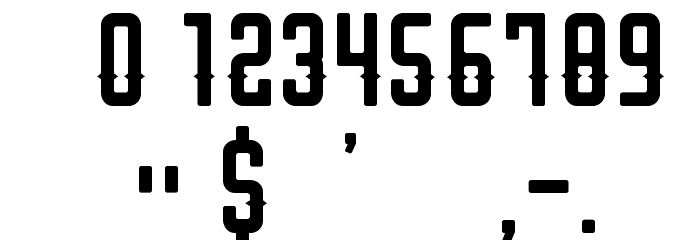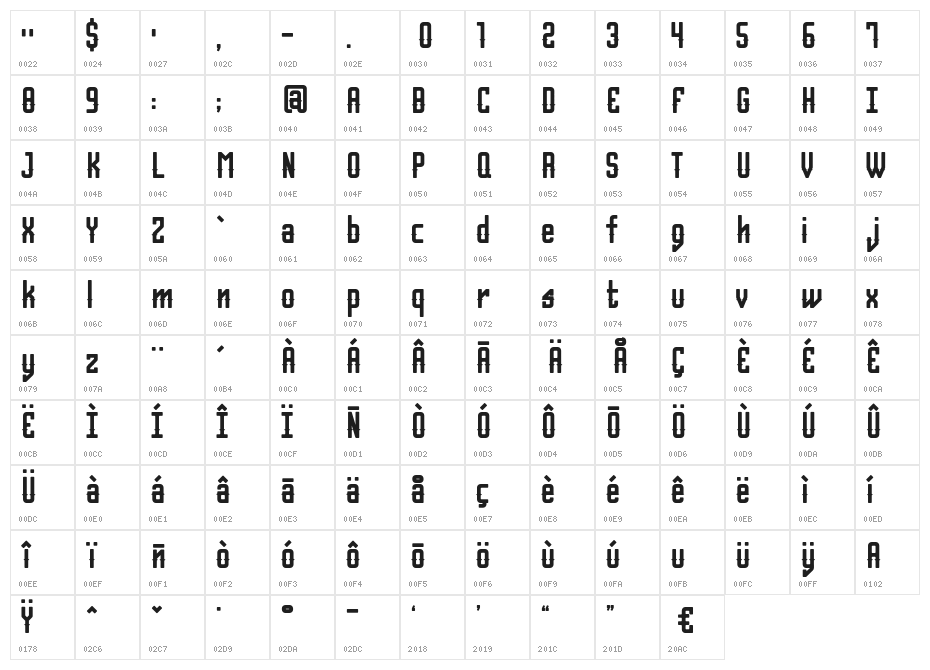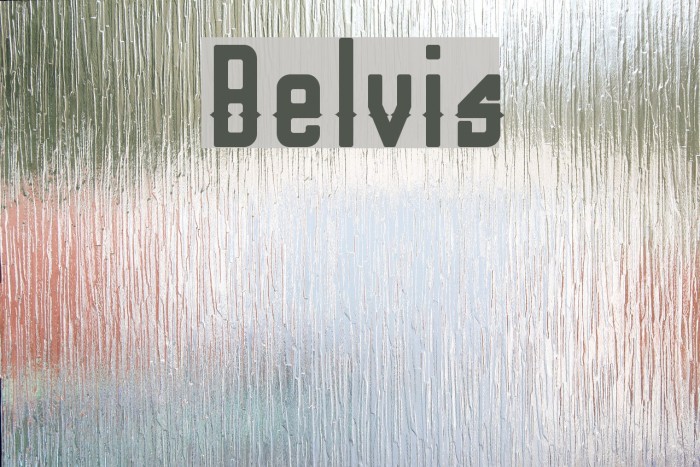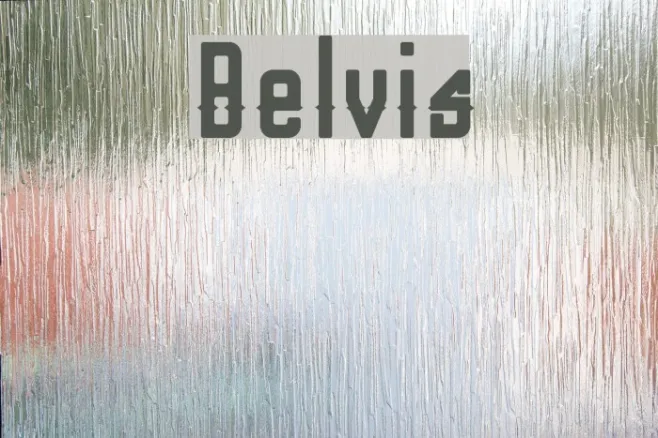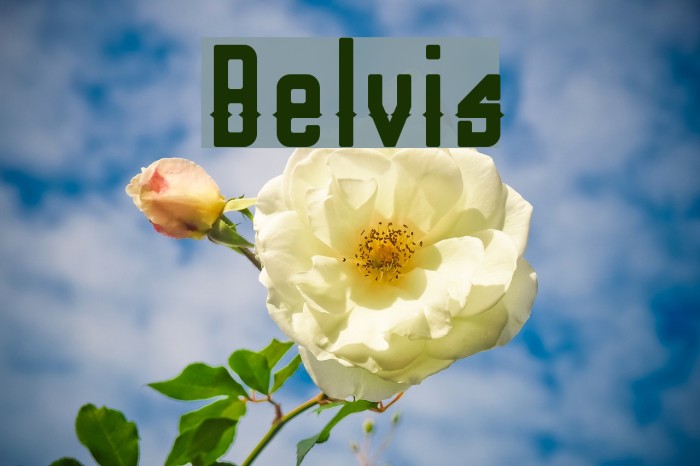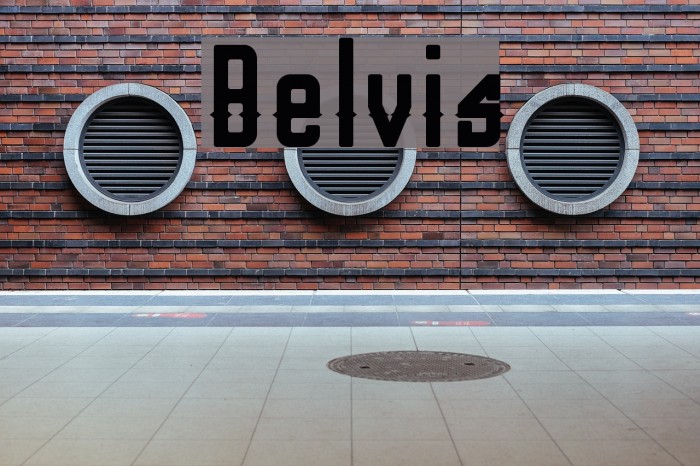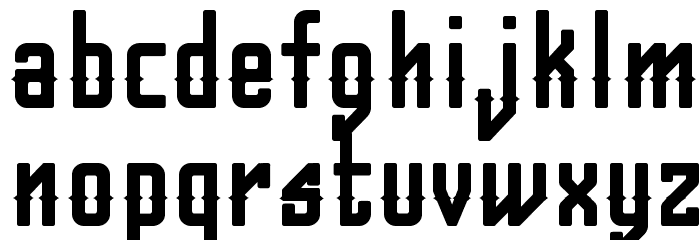
Belvis Font
Belvis Description
This font features a bold and modern design with a distinctive geometric structure. The characters are constructed with a unique blend of sharp angles and rounded edges, creating a striking visual contrast. The uppercase letters are uniform in height, while the lowercase letters maintain a consistent baseline, enhancing readability. The numerals are bold and clear, making them suitable for a variety of applications. Special characters are designed with the same attention to detail, ensuring a cohesive look across all glyphs. The overall style is contemporary, making it ideal for projects that require a strong and modern aesthetic.